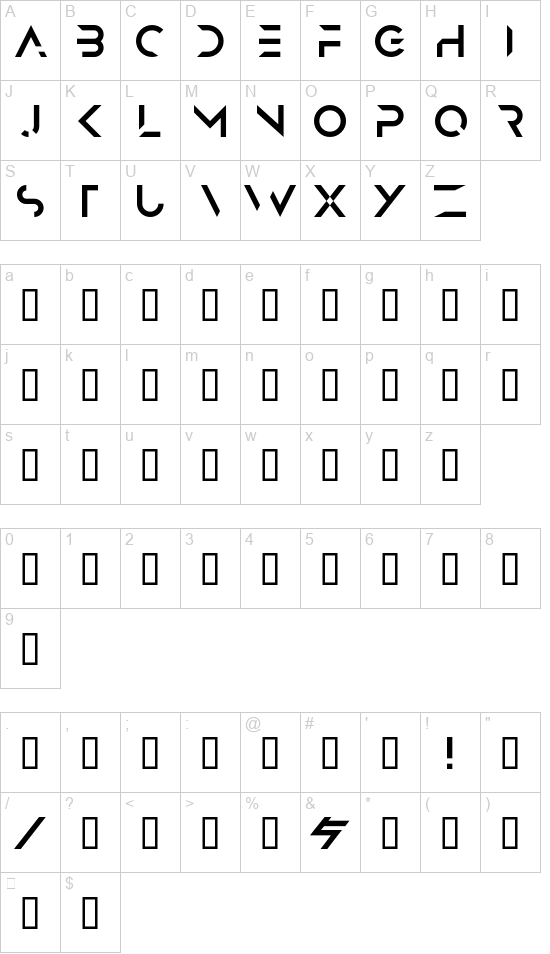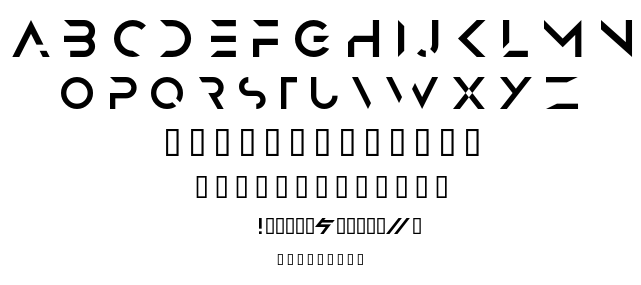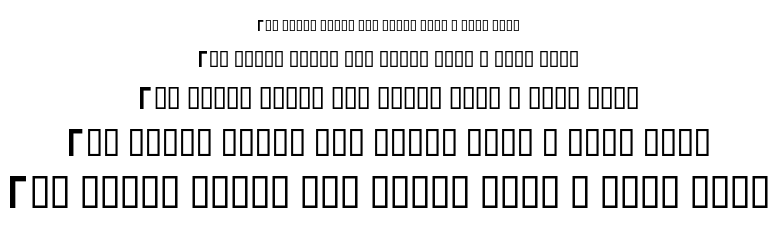
Anurati is a new futuristic font I’ve worked on during the making of my website. Originally made to be free, this font makes way for the creativity of each and every one. Modify it, give it colors, no licence is required for its use (as for personal projects and commercials).